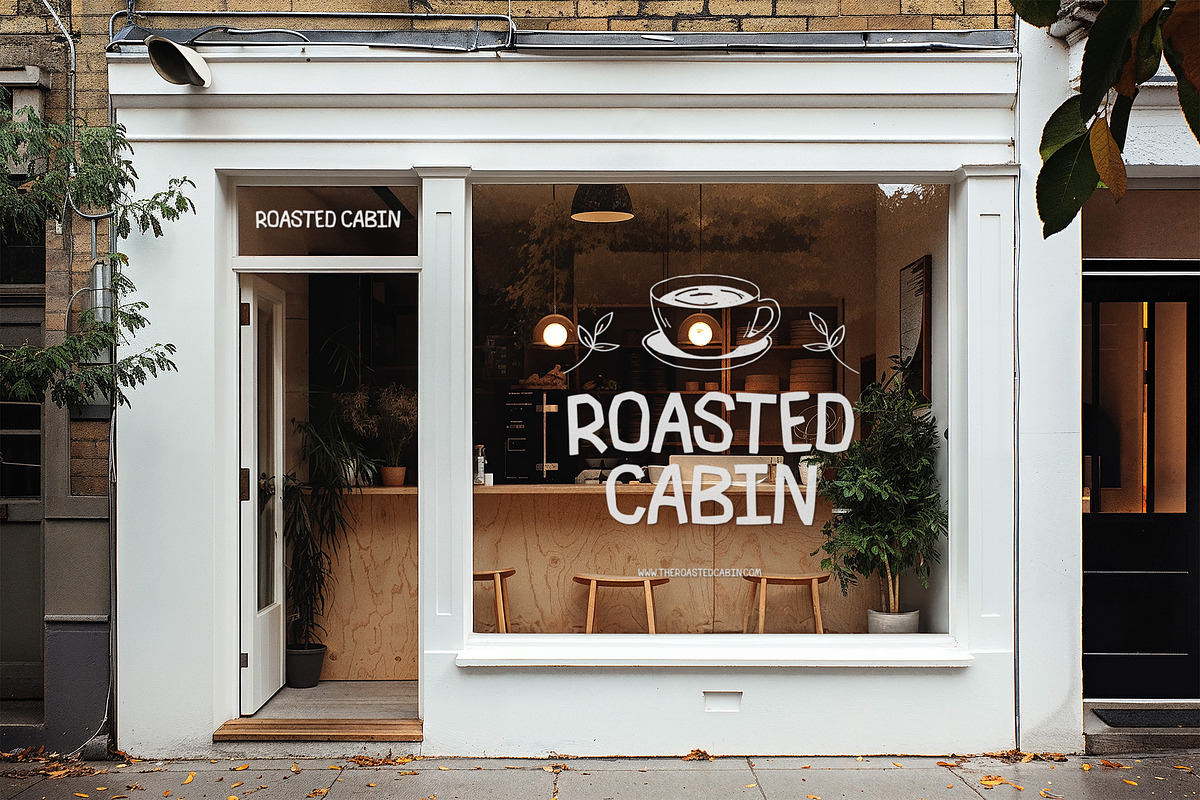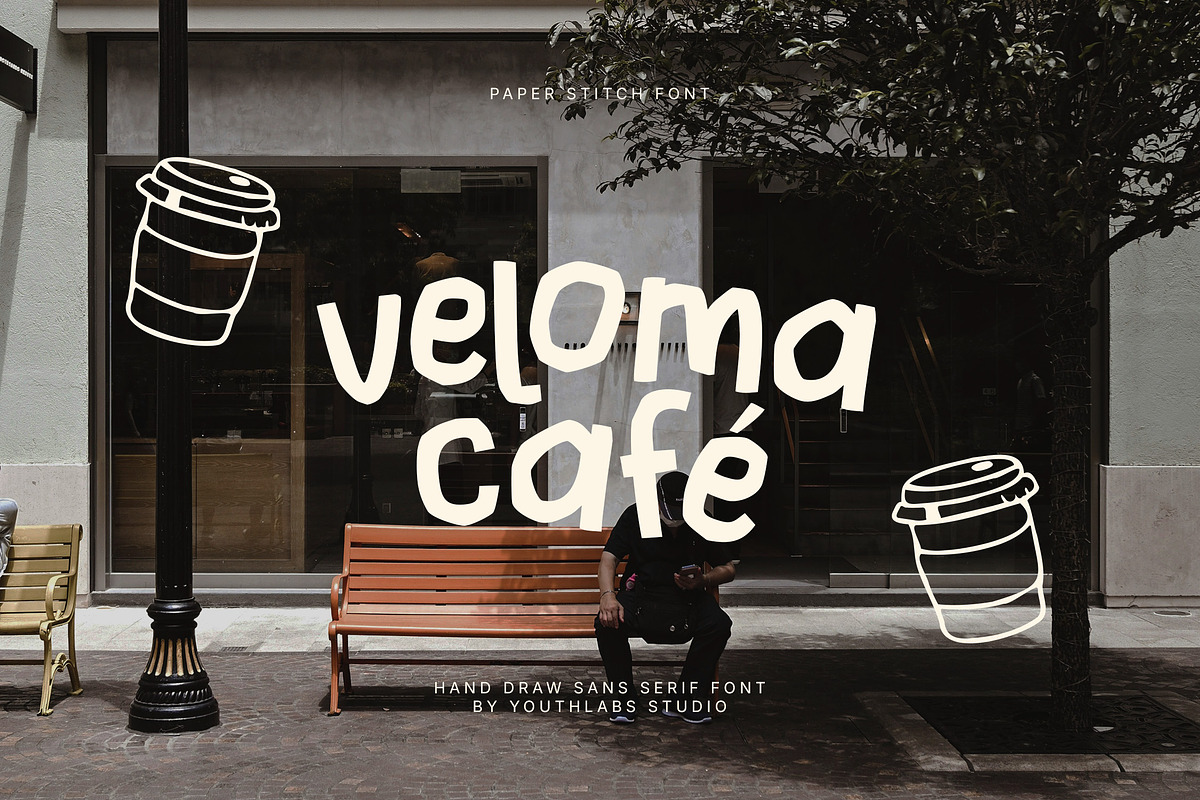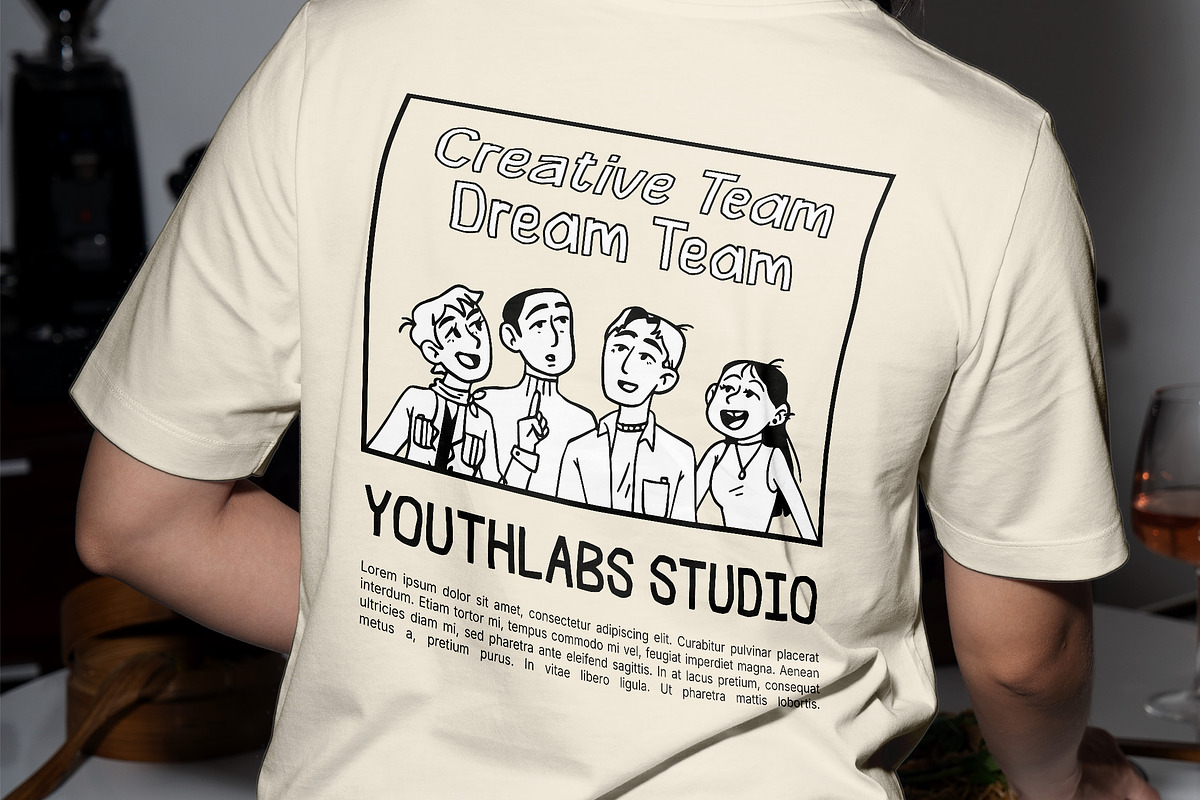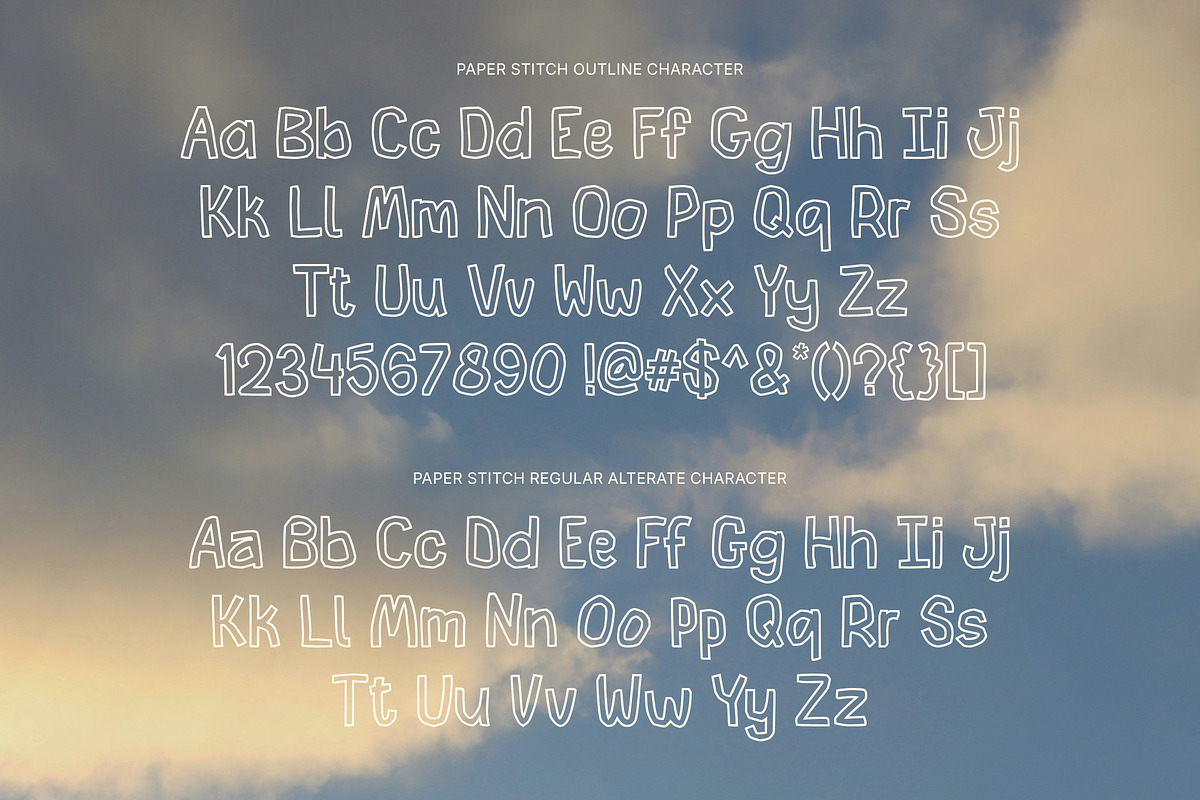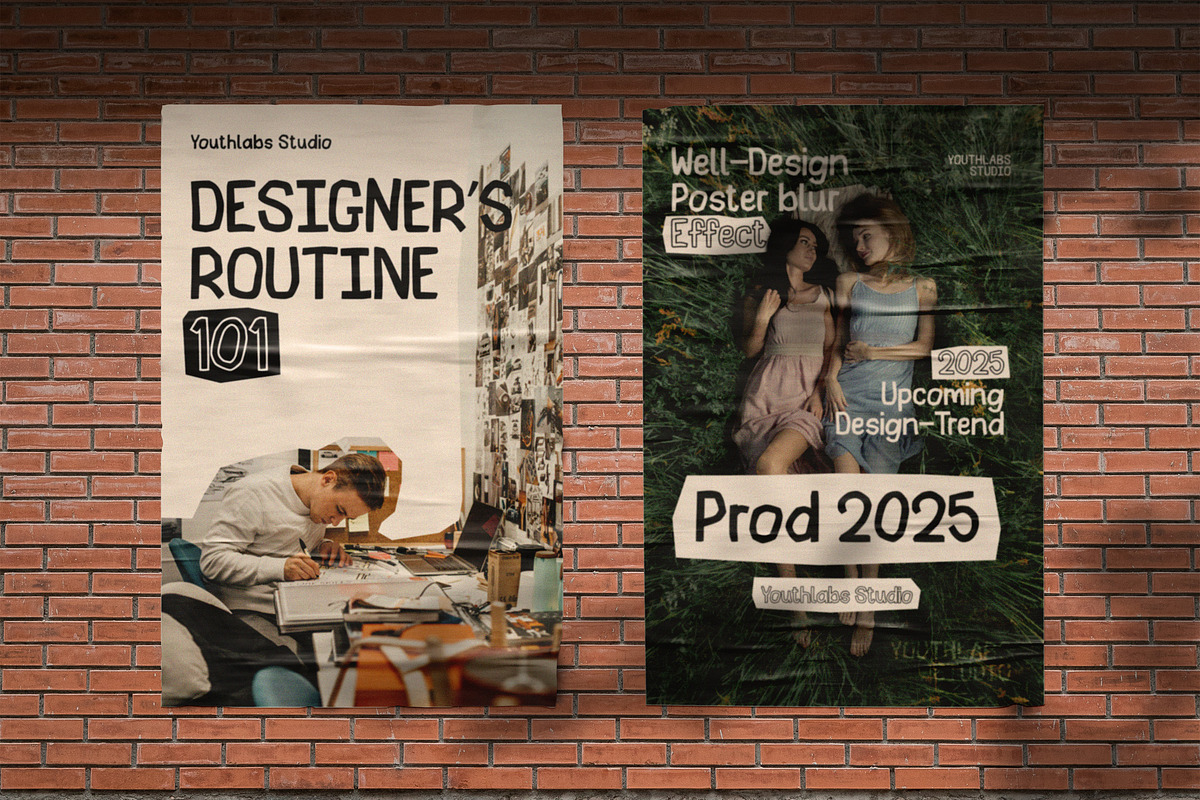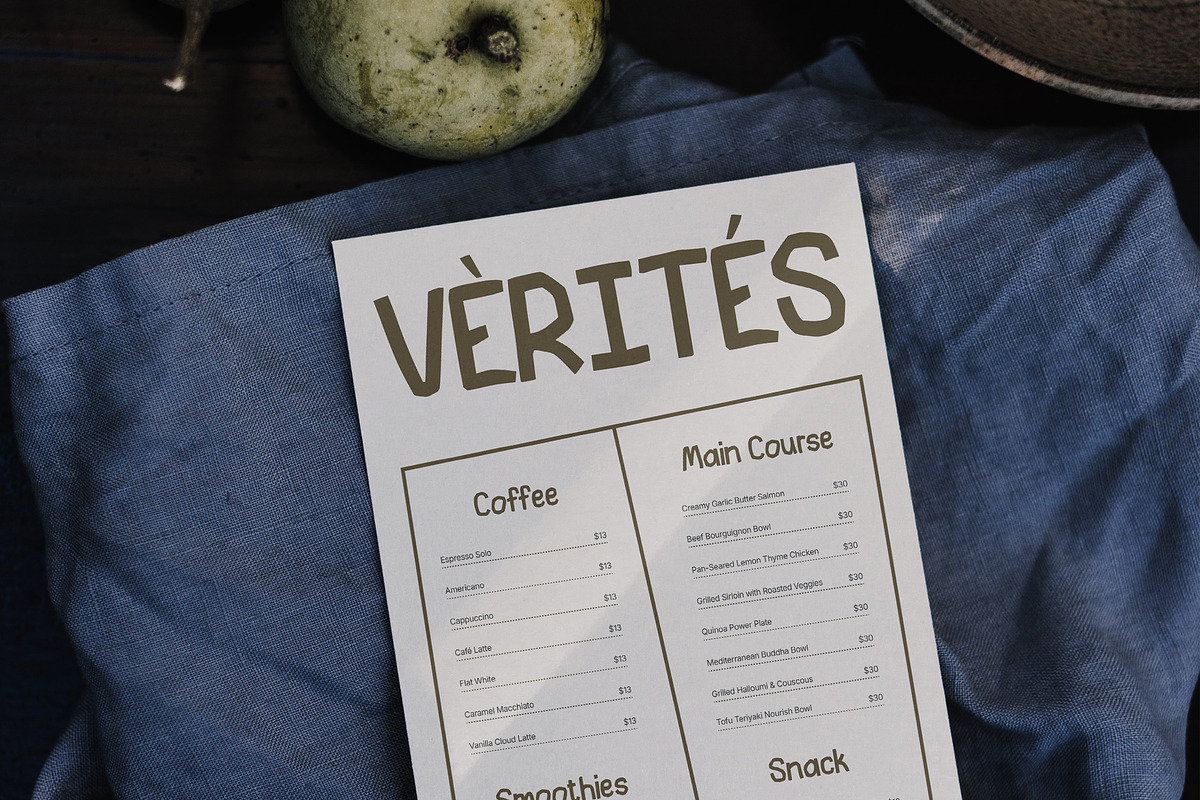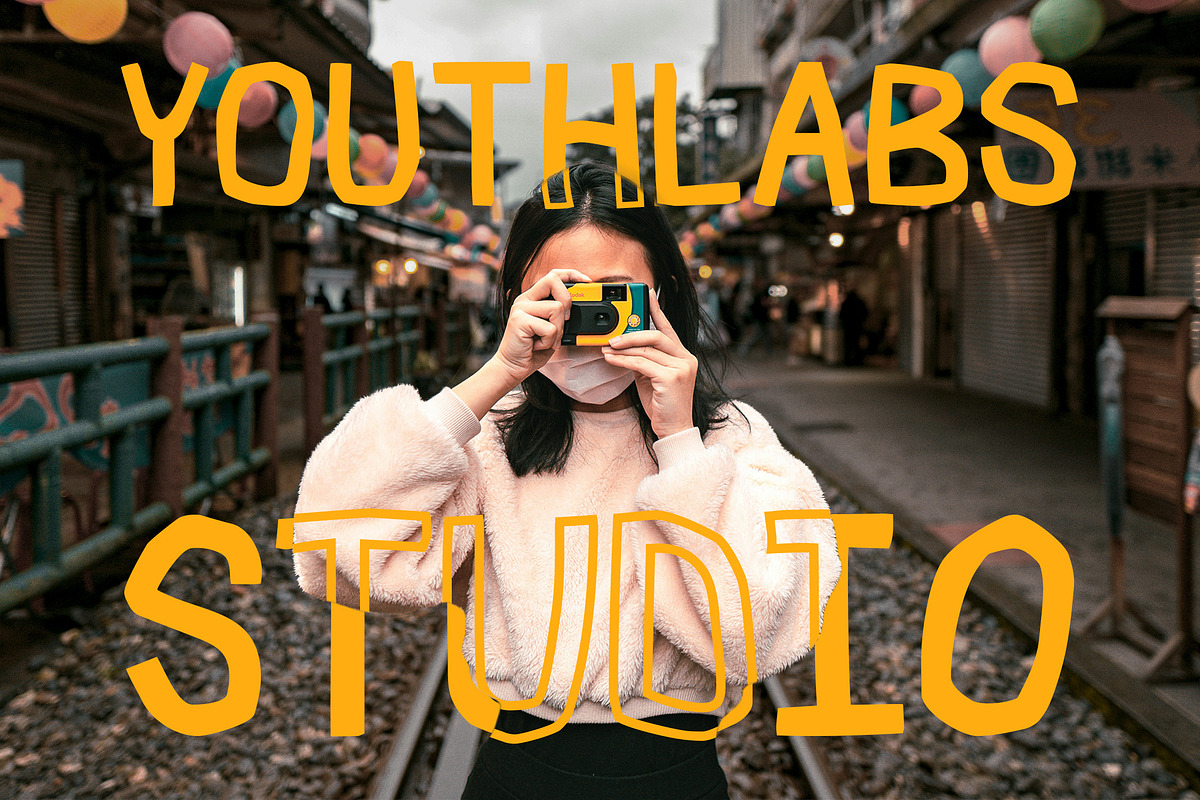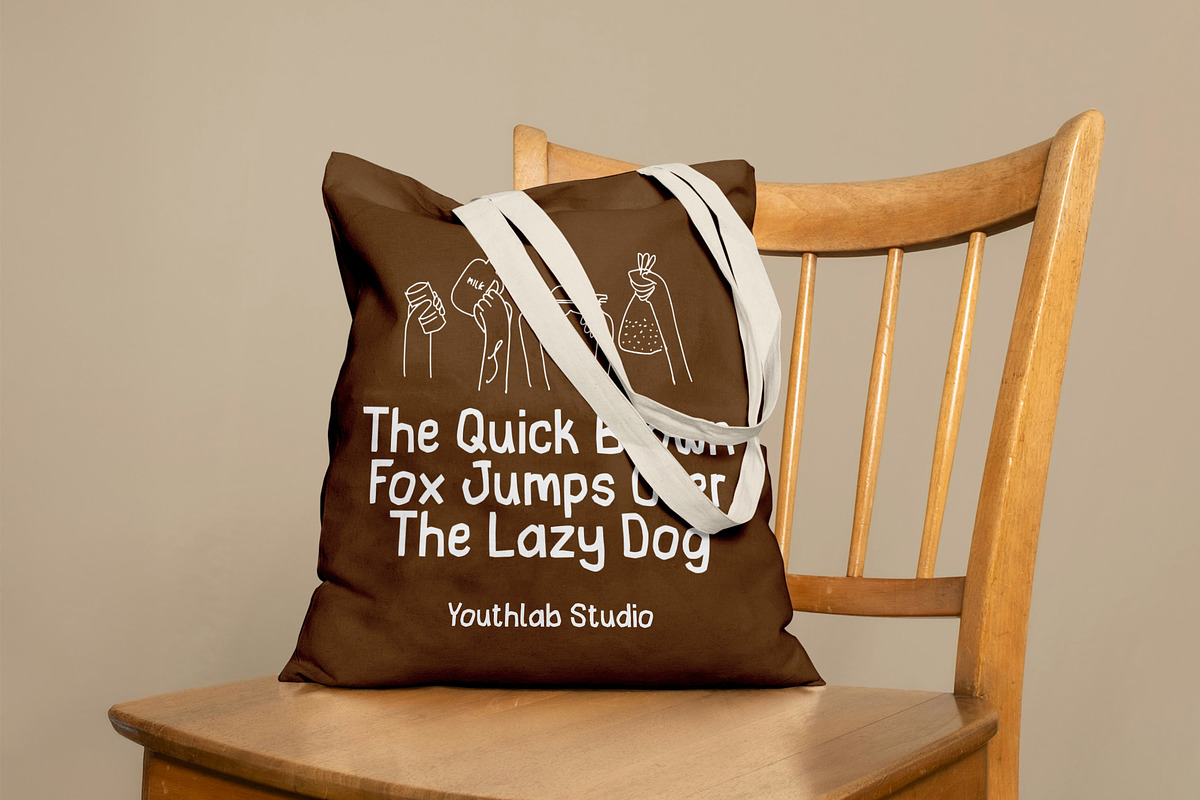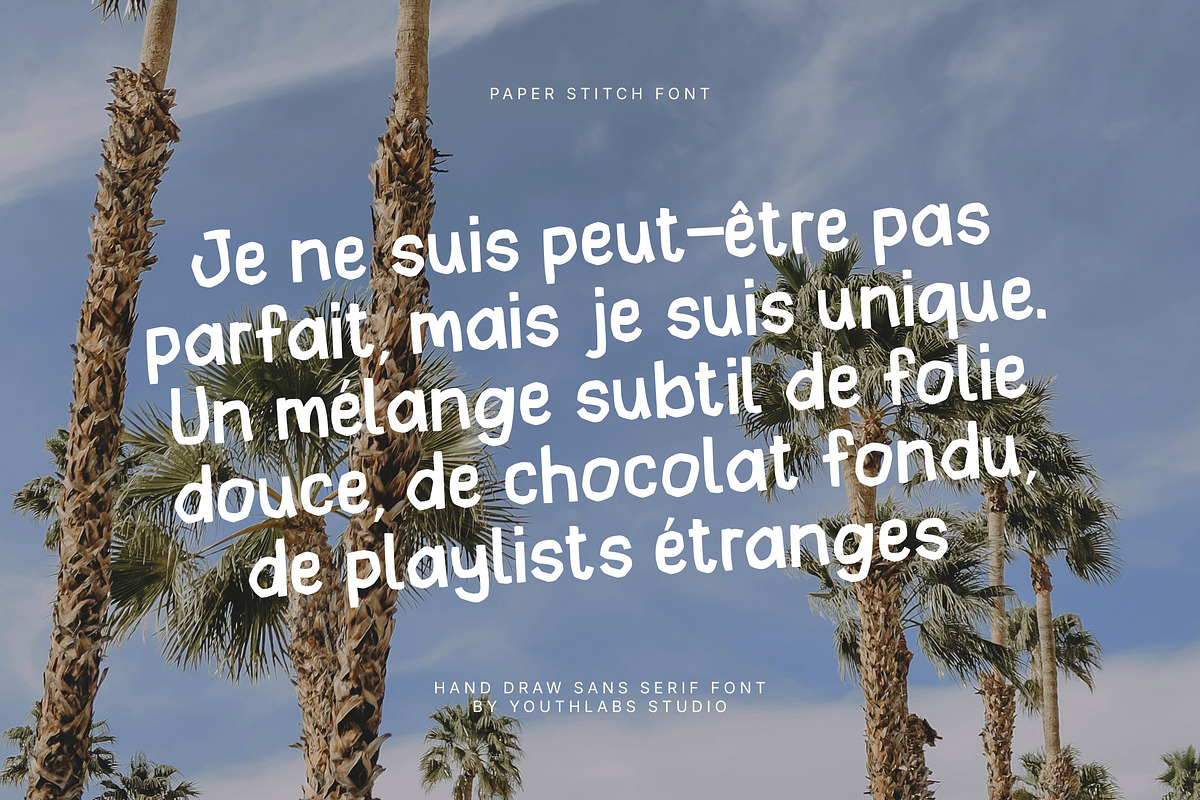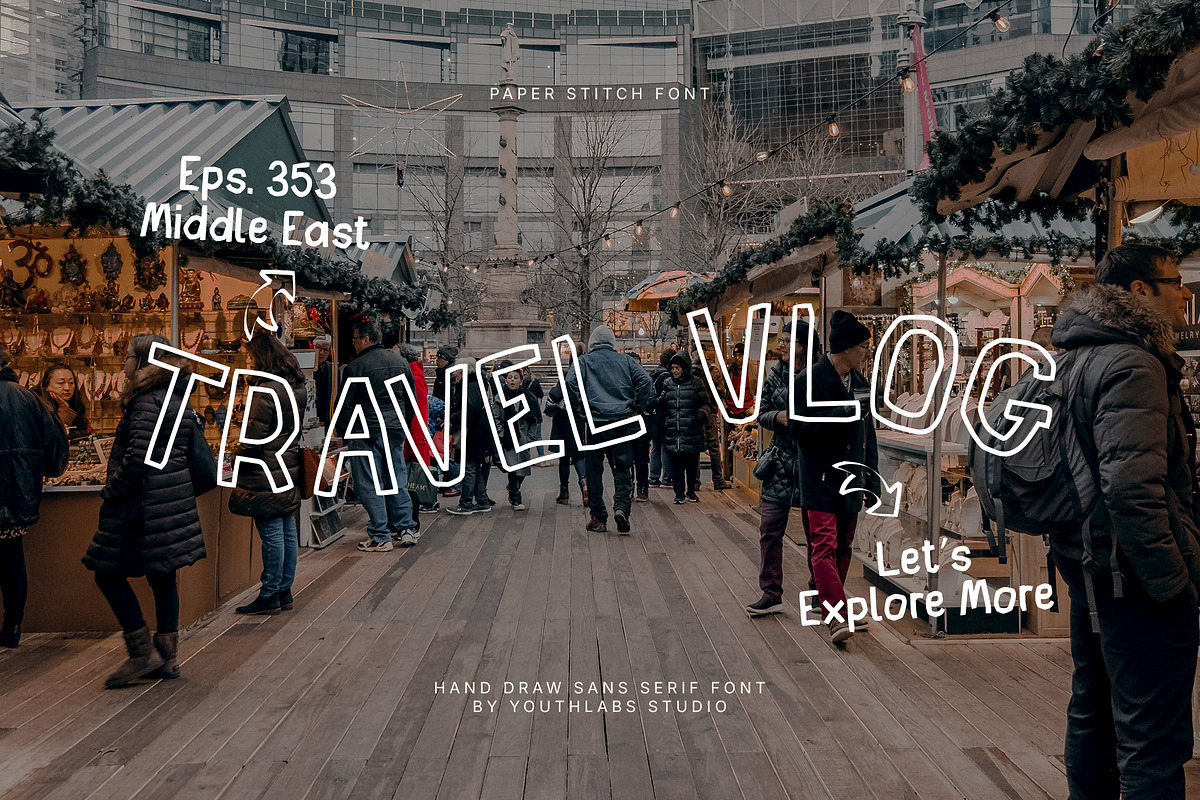
Paper Stitch - Hand Drawn Font
Paper Stitch Bring a playful, handmade charm to your creative projects with Paper Stitch, a hand-drawn sans serif font that blends the casual feel of a travel journal with the clarity of modern design. Each letter feels like it’s stitched together with care—perfect for vlog titles, lifestyle branding, adventure posters, DIY packaging, and anything that craves a personal, crafted touch.
What's The Feature ?
- 2 Style Font
- Alternate Character
- Opentype Feature